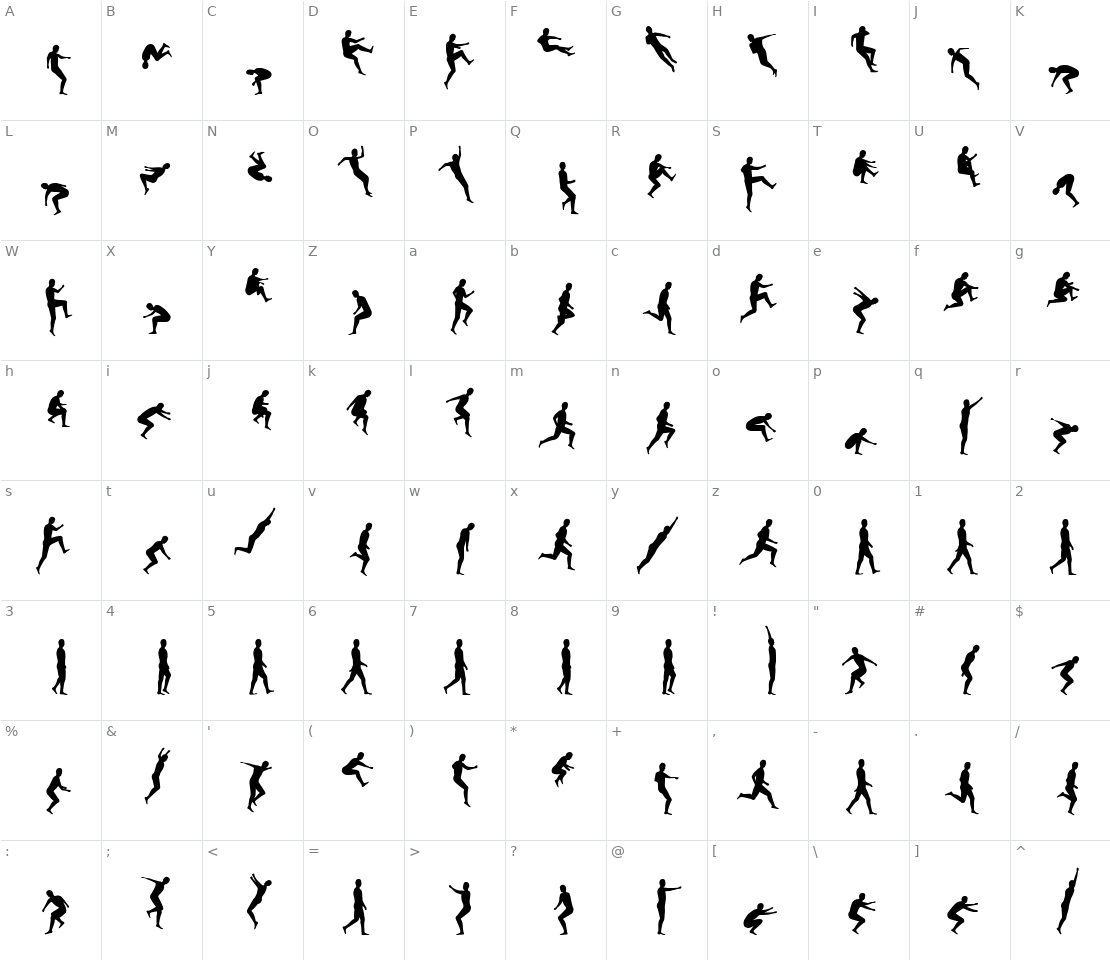
Swifty
Swifty is a novelty dingbat font made up of human silhouettes in motion, with each character mapped to a different running, jumping, or athletic figure. The poses feel dynamic and energetic, capturing mid-stride action that reads clearly even at smaller sizes. Useful for sports-themed graphics, race signage, infographics, or anywhere you need quick visual shorthand for movement and athleticism.